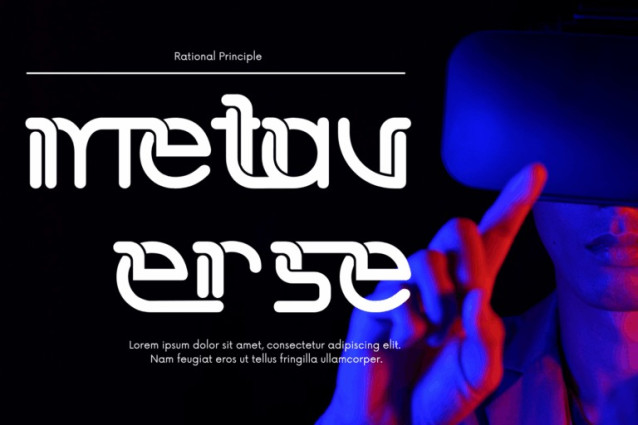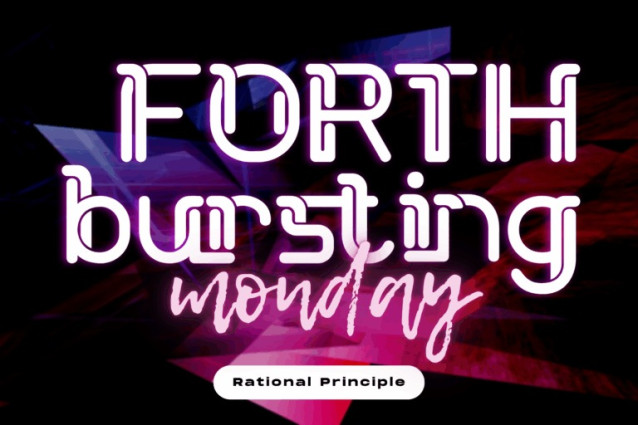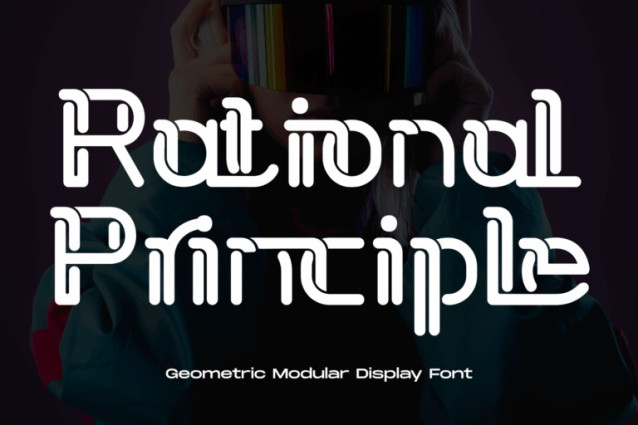
Rational Principle Font
Rational Principle Font is a futuristic modular typeface designed with rounded terminals and circuit-inspired geometry. With a bold, ultra-modern aesthetic, this font blends technology, logic, and rhythm into a striking typographic system that is both readable and distinctive.
Each character is constructed from continuous stroke segments and circular terminals, creating a seamless, flow-like appearance. The clever use of space and stroke separation gives the font a mechanical yet humanized personality—ideal for high-tech branding, music visuals, fashion editorials, or any design that demands a sleek and forward-thinking tone.
Font Features:
Uppercase and Lowercase letters
~100 Custom Ligatures
Accented Characters (multilingual support)
Great for tech posters, interfaces, covers, and conceptual design
About 100 ligatures combined with Stylistic Alternates Font: